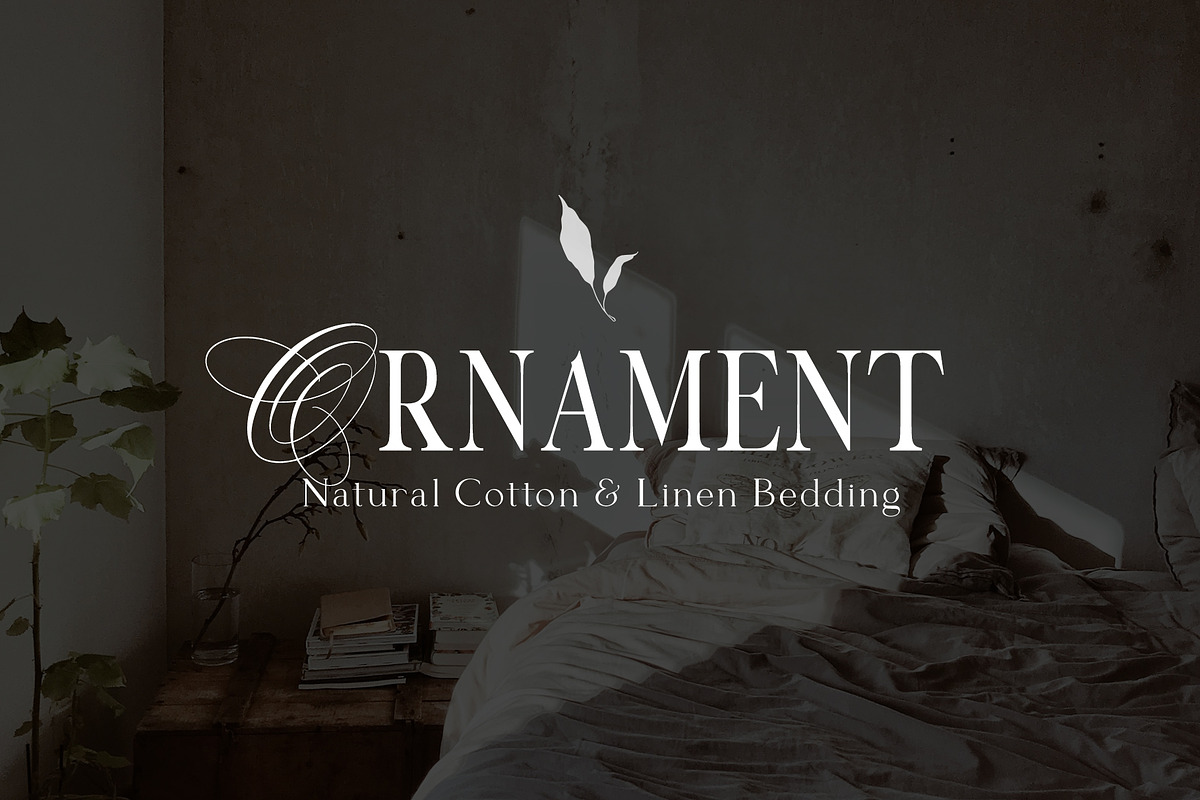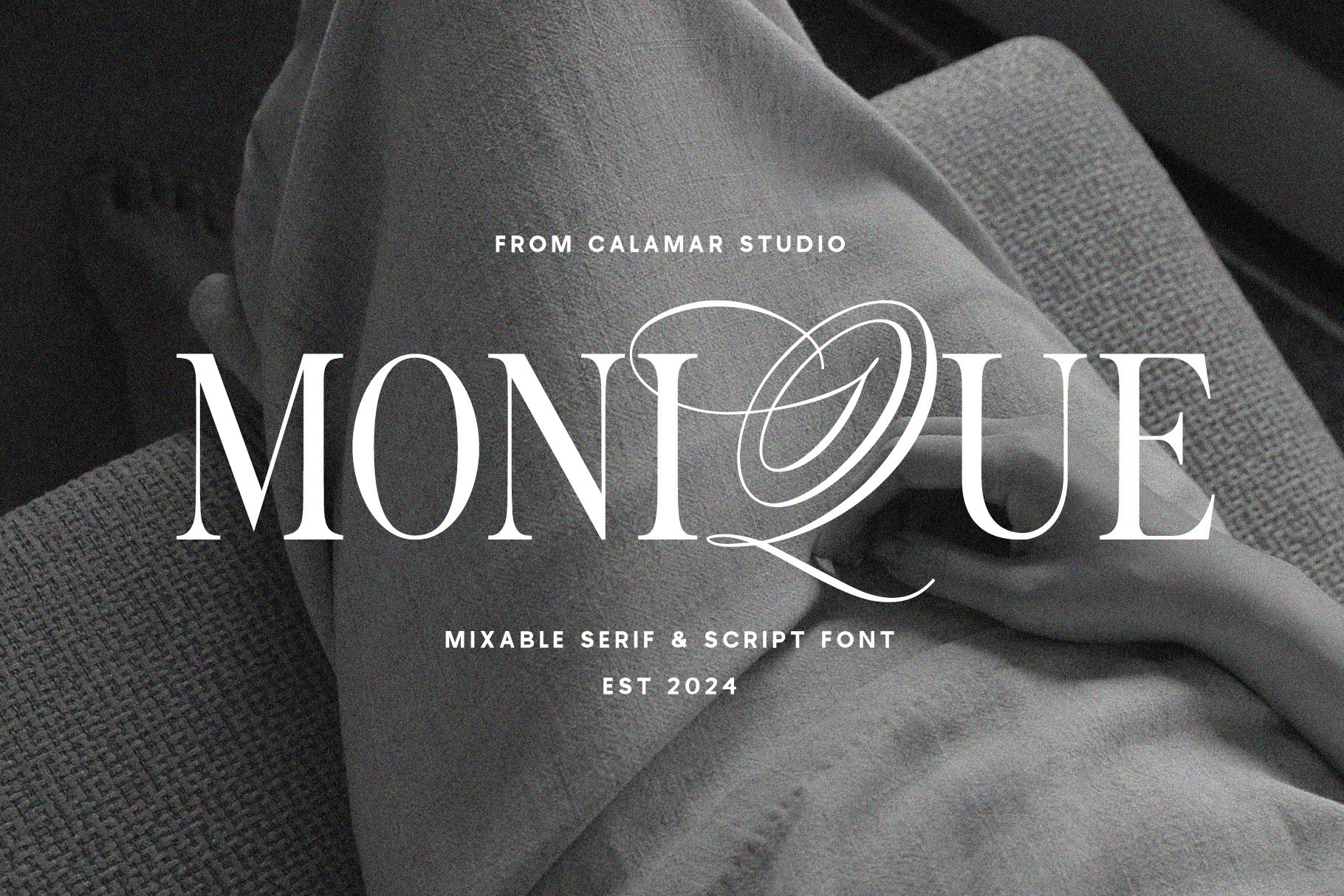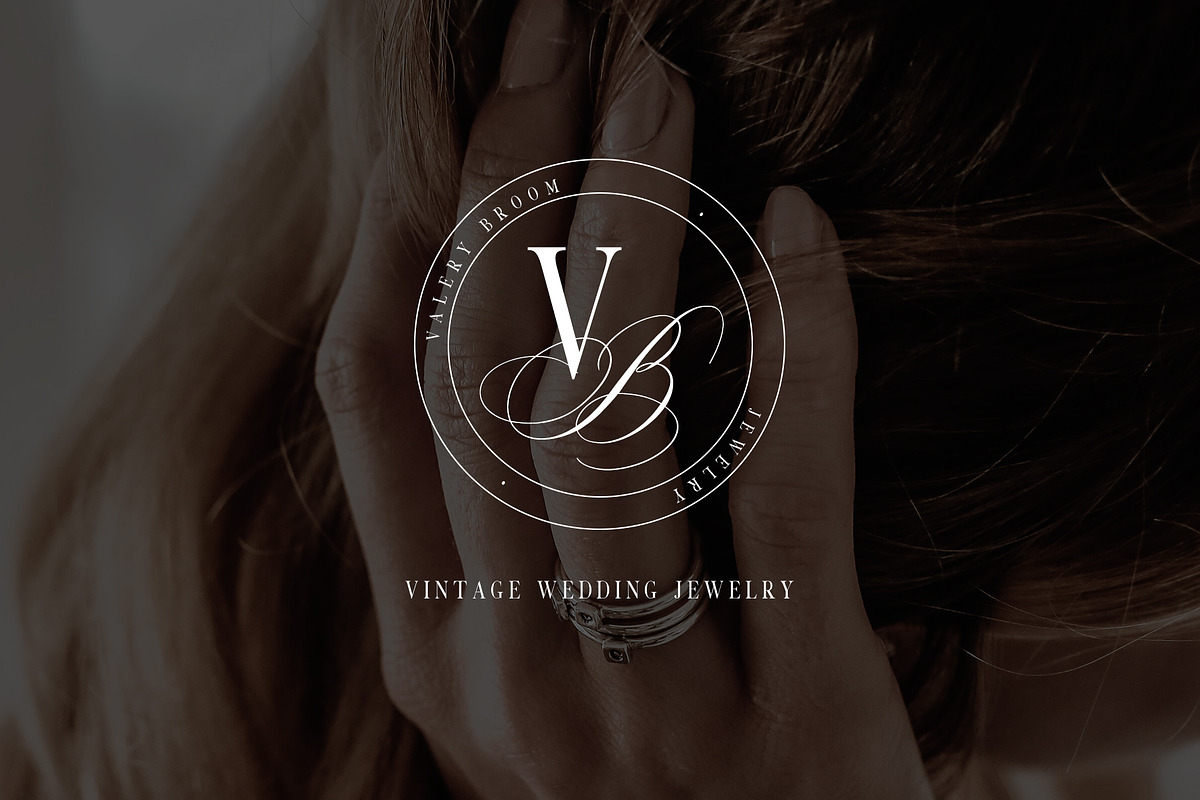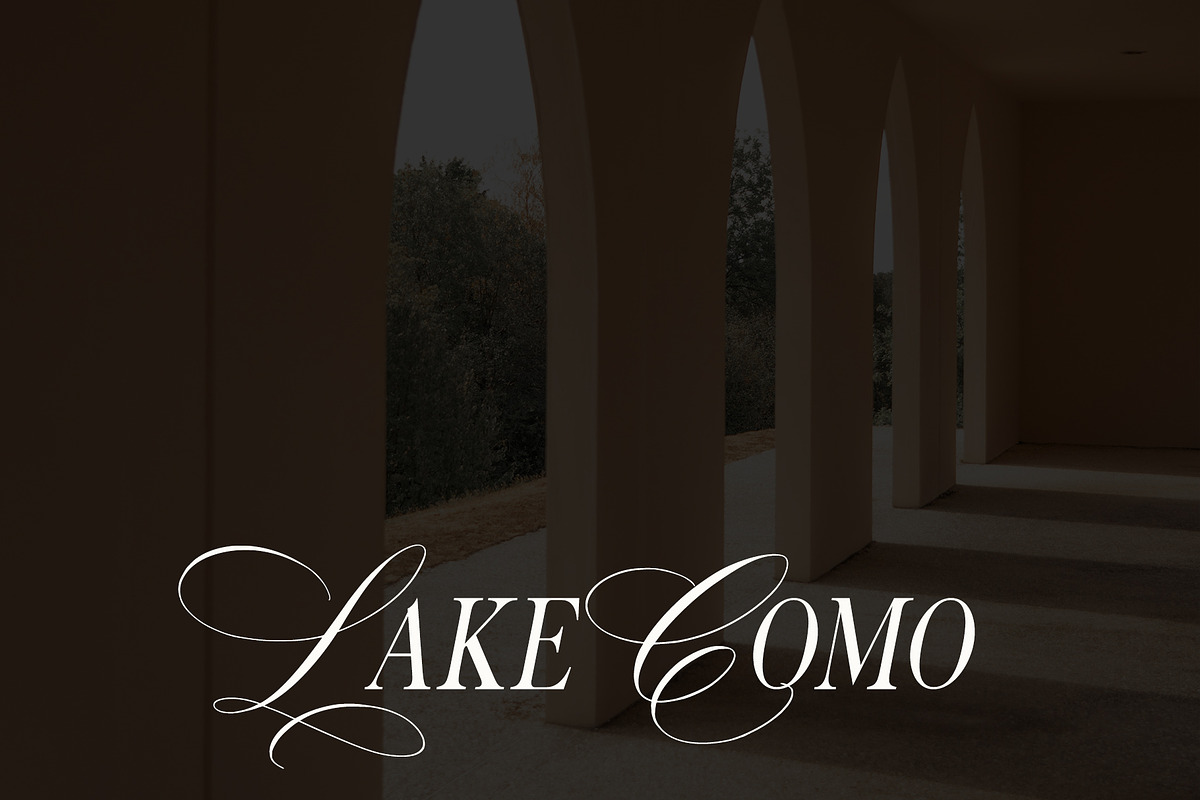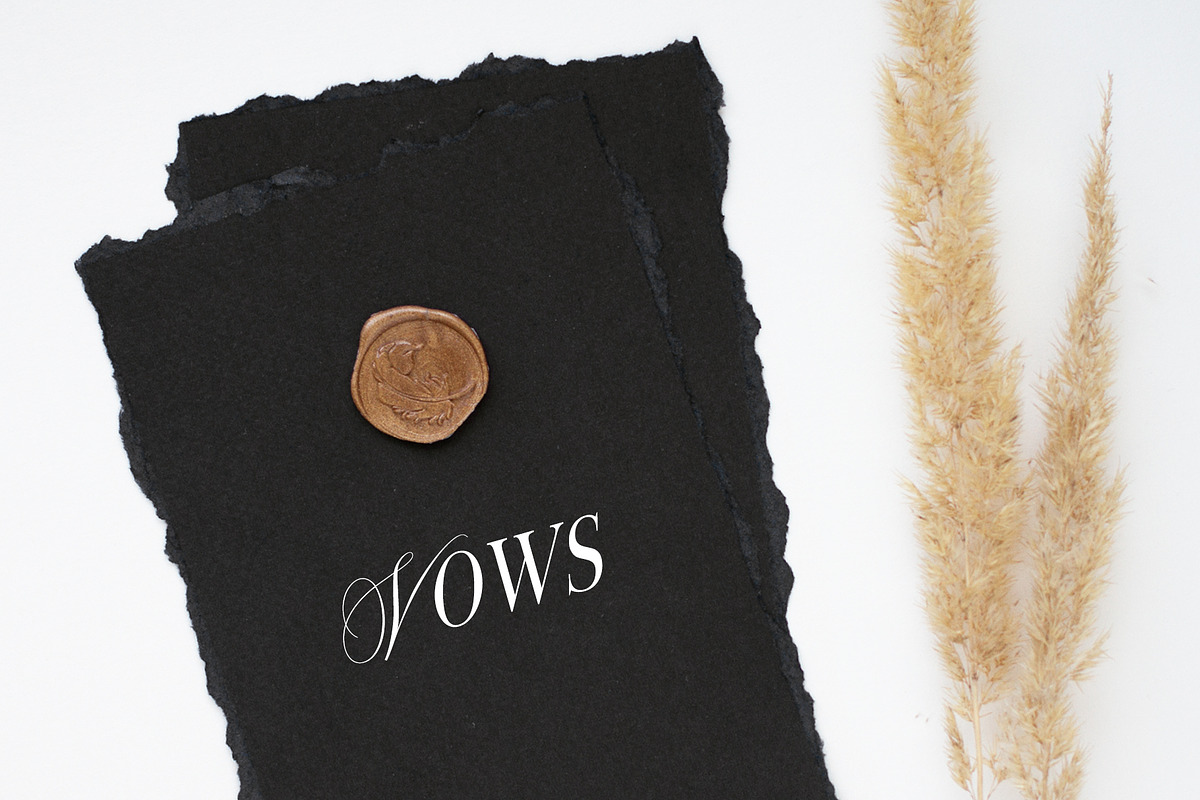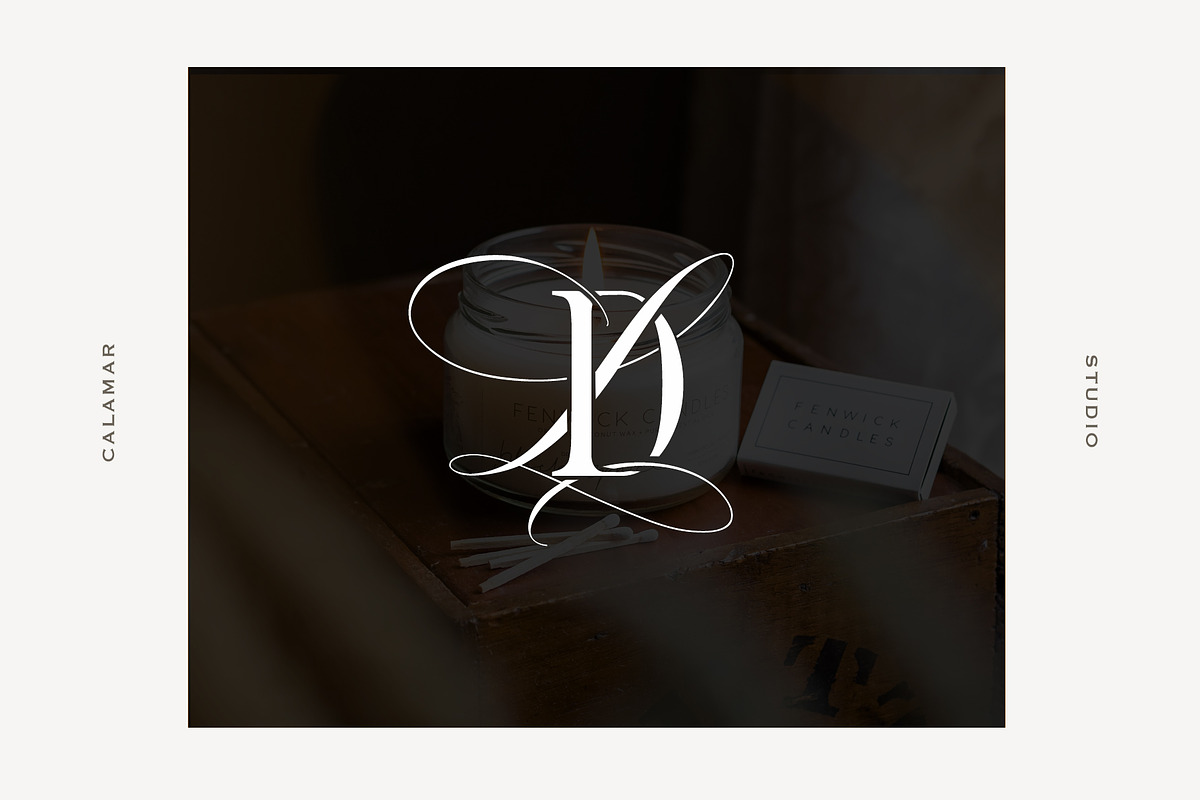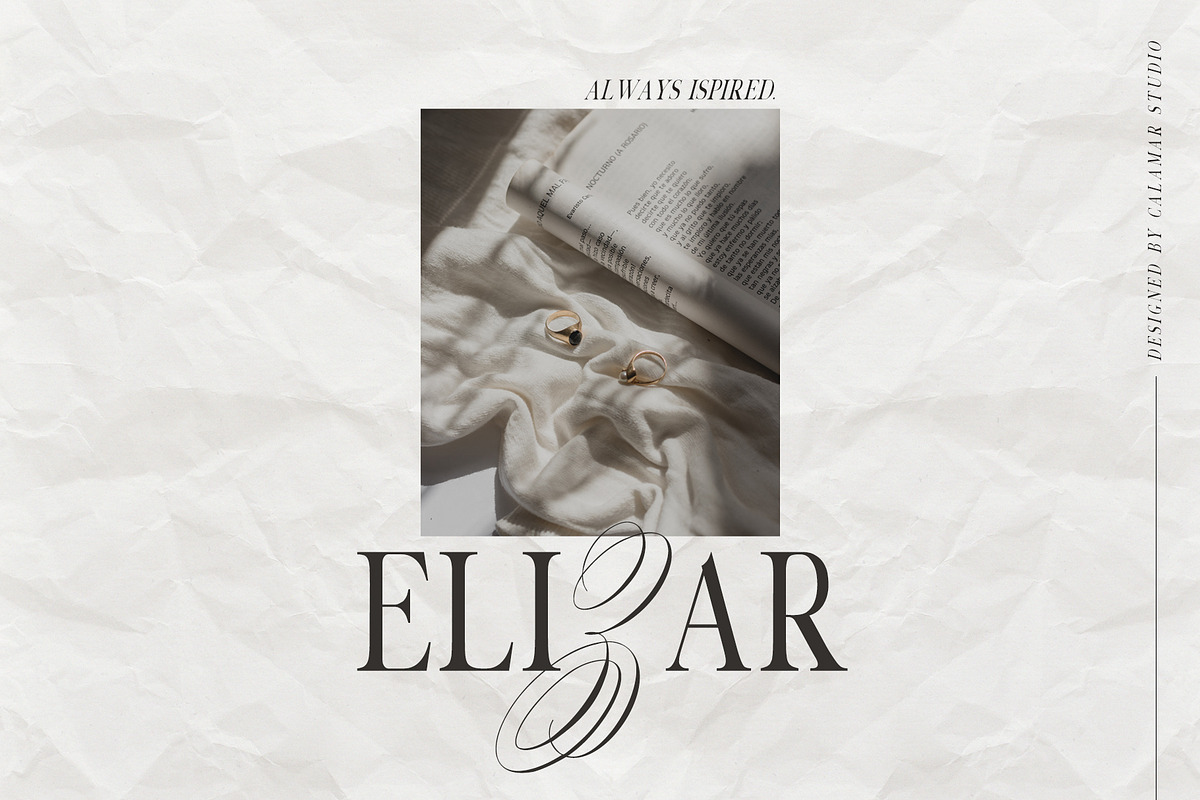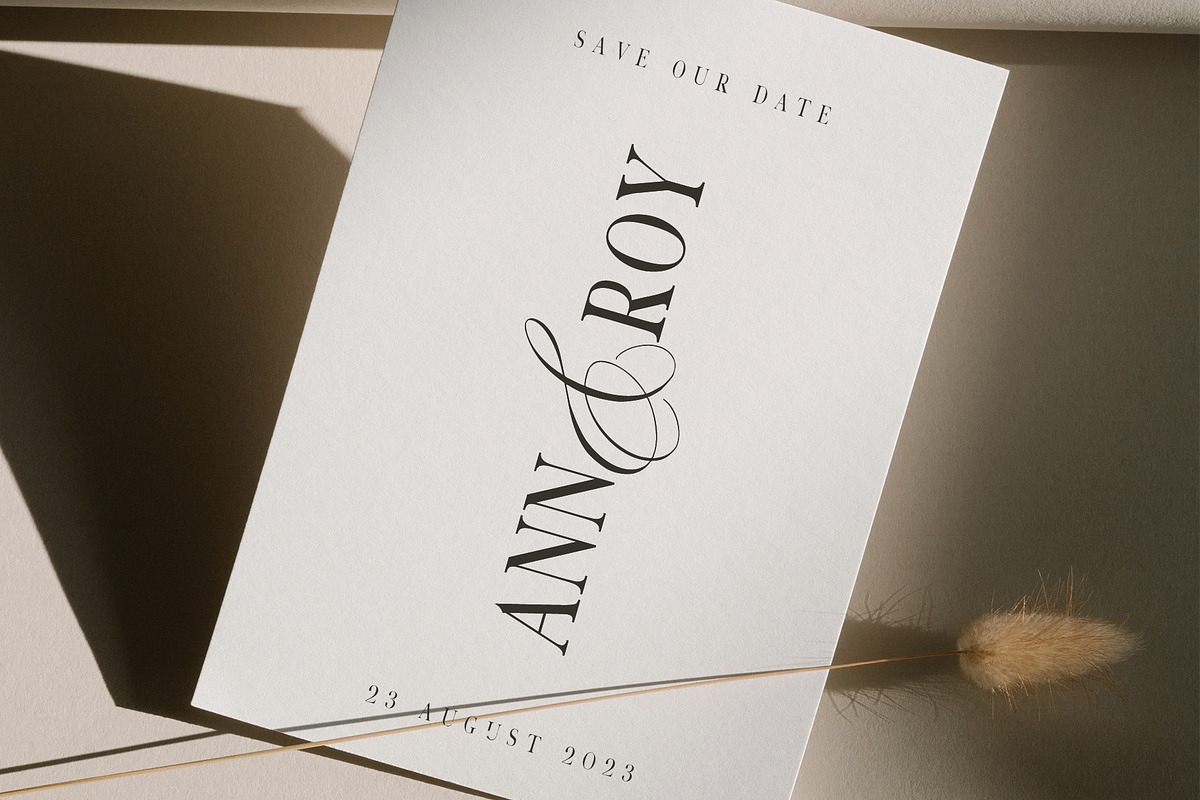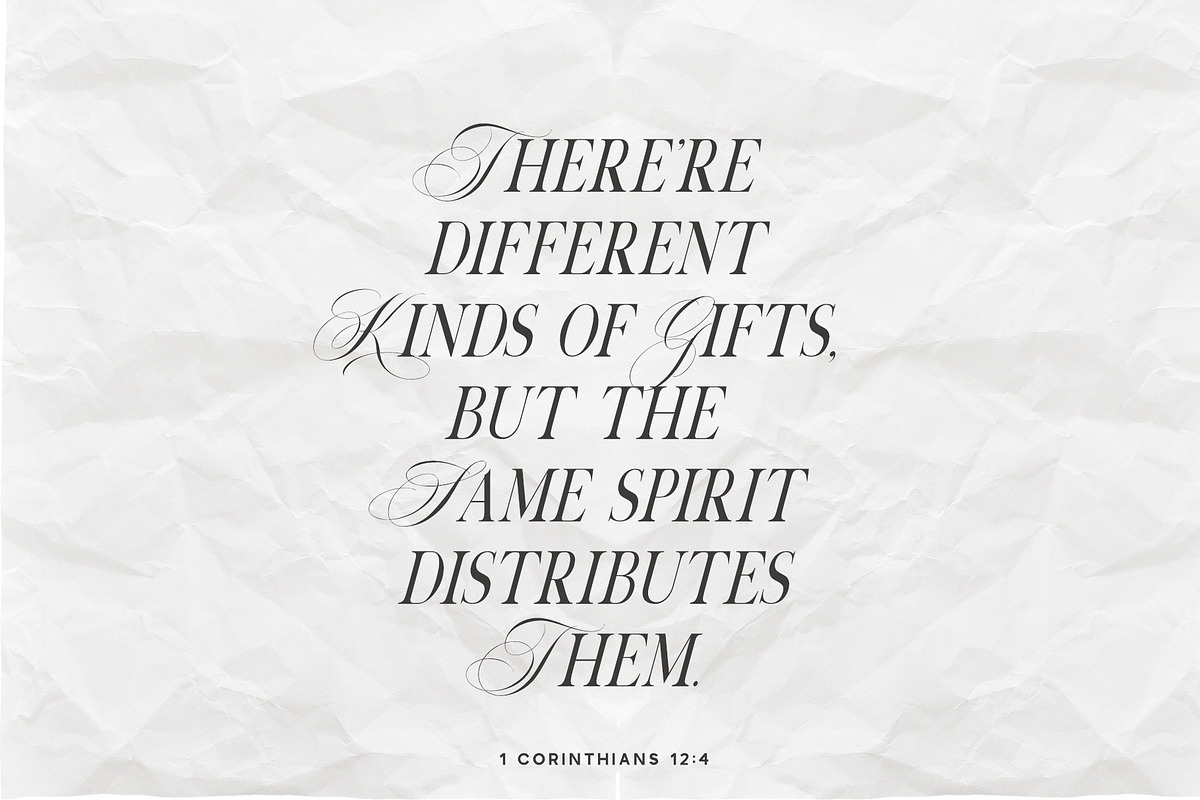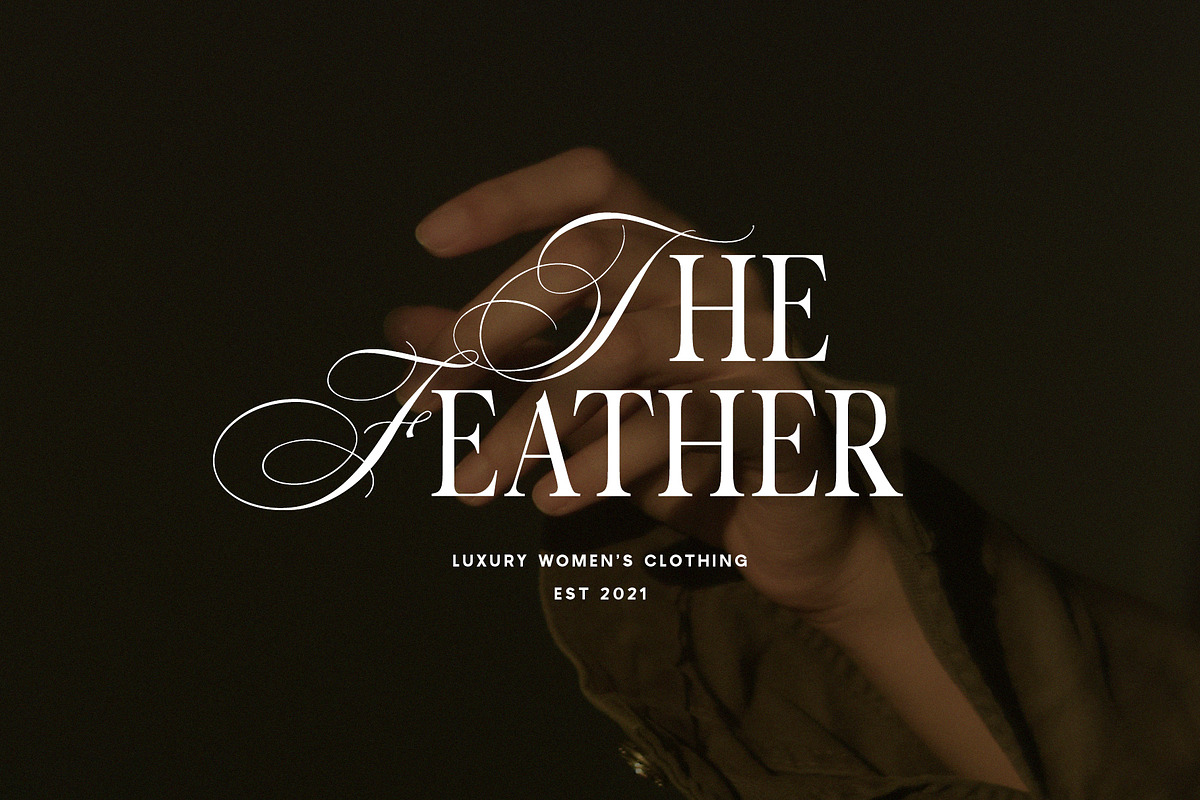
Monique Display Duo Font | Logo Font
Monique font is a gorgeous and luxury mix of classic calligraphy and modern serif fonts. All capital letters have a calligraphy style and may by insert anywhere in the word to create unique logo, name or display title. Just type them via uppercase.
FEATURES Two weights / Italics / Numbers & Punctuation / Multilingual Support
Monique font has a smooth texture, so would be perfect for all types of printing techniques.